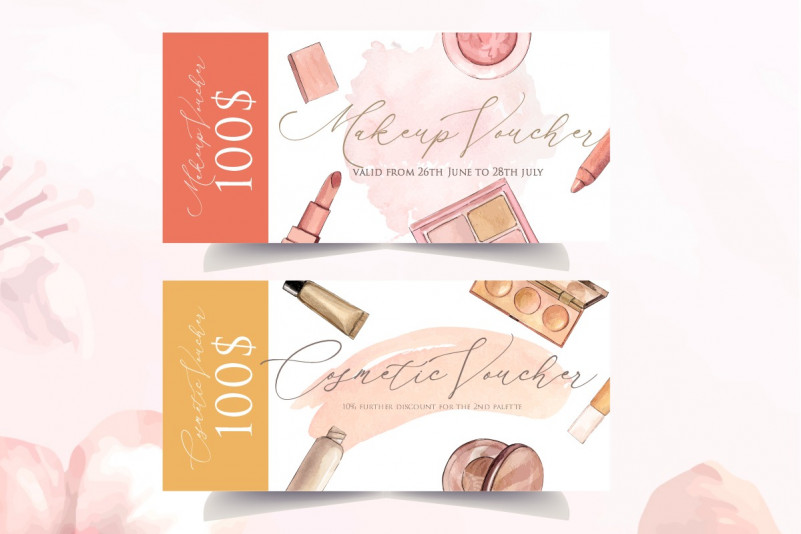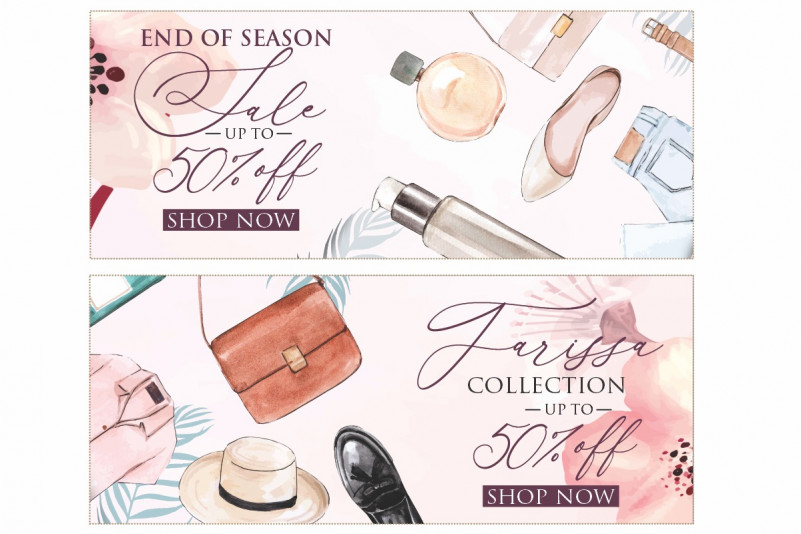
Swaziland Handwritten Font
Swaziland is a delicate and timeless handwritten font. It is PUA encoded which means you can access all of the glyphs and swashes with ease! It features a varying baseline, smooth lines, gorgeous glyphs and stunning alternates. Fall in love with its distinct style and create outstanding designs!